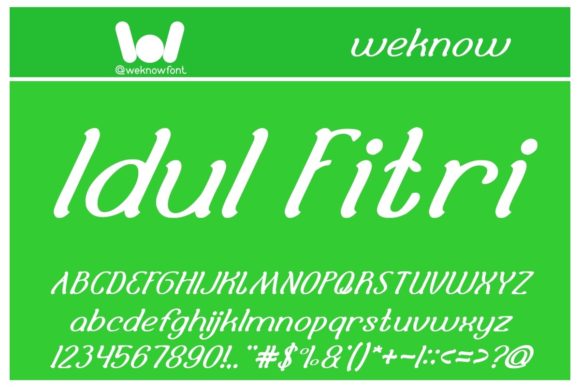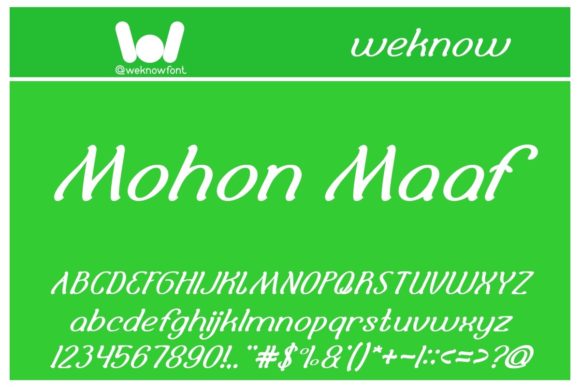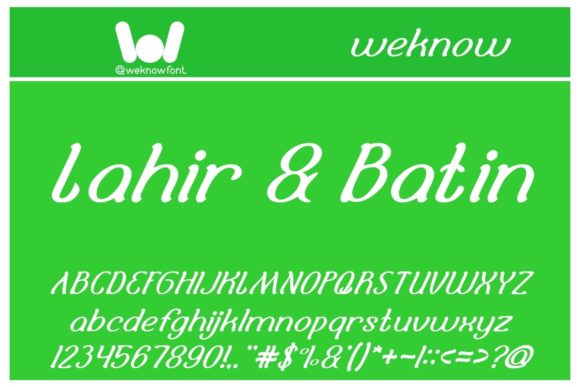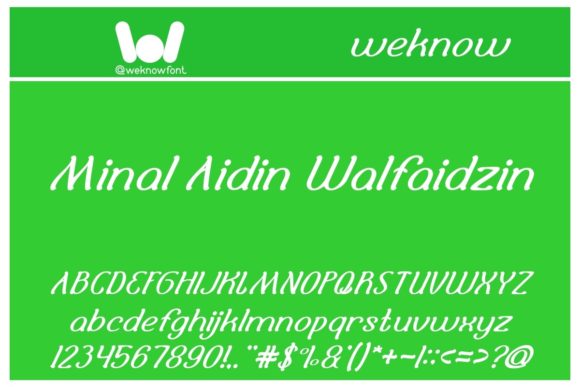
Introduction to Selamat Hari Raya Font
Selamat Hari Raya is a fancy various themed display font.
It is suitable for logos, headline font, in corporate identity, brand identity, apparel industry, poster, music, movie, game, magazine, book, comic, cartoon, YouTube, Instagram, website, or any of your creative design projects .
Key Features of Selamat Hari Raya Font